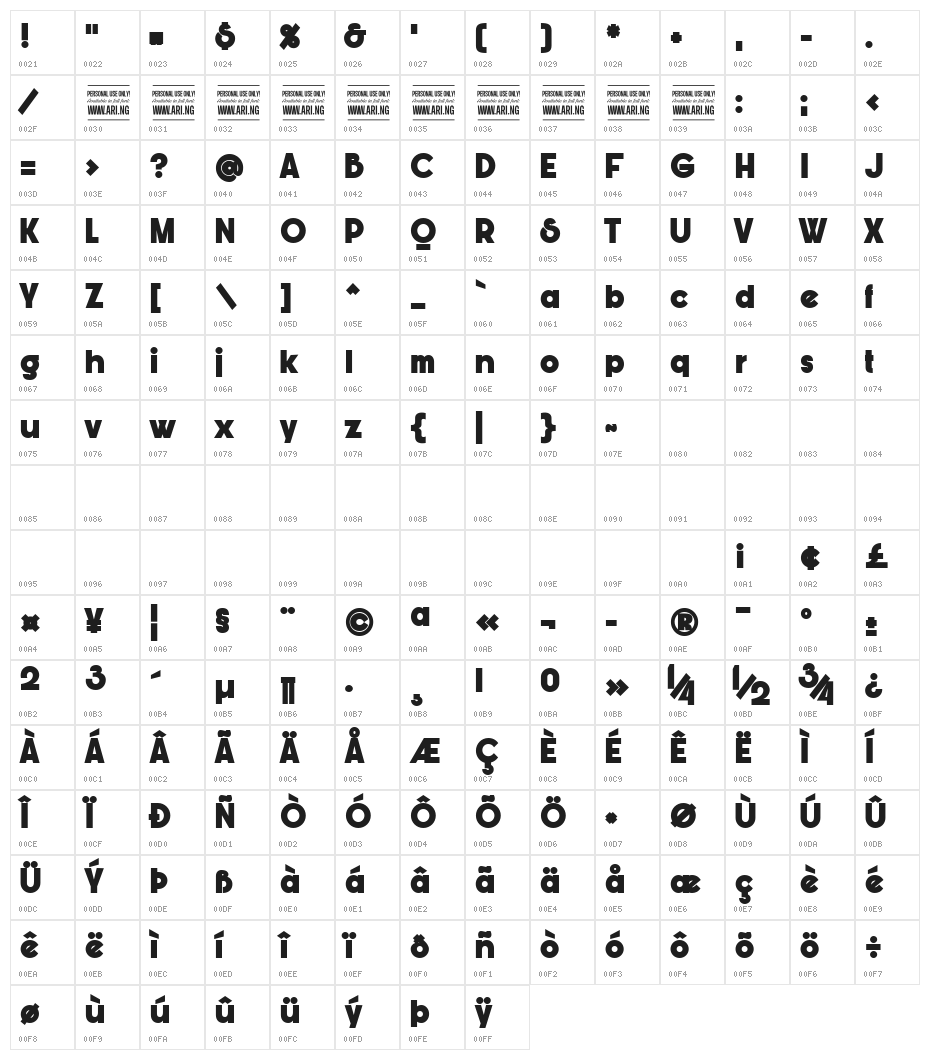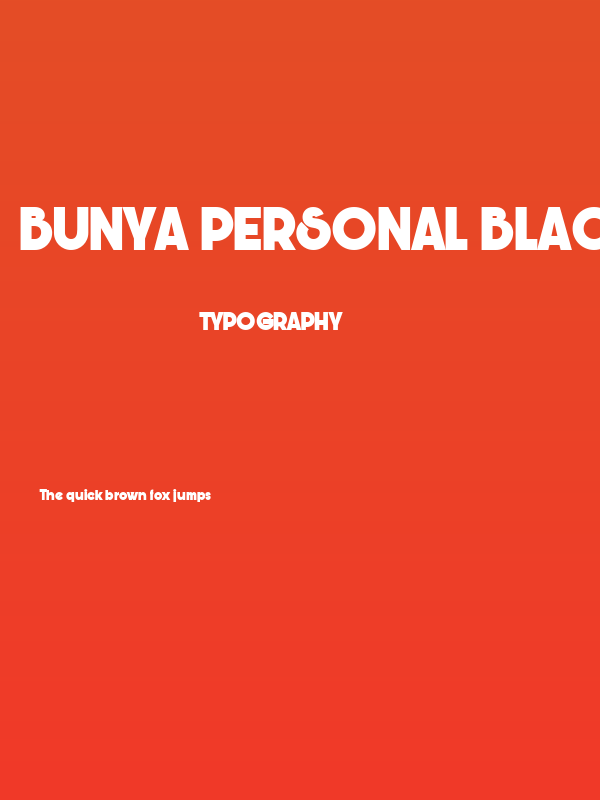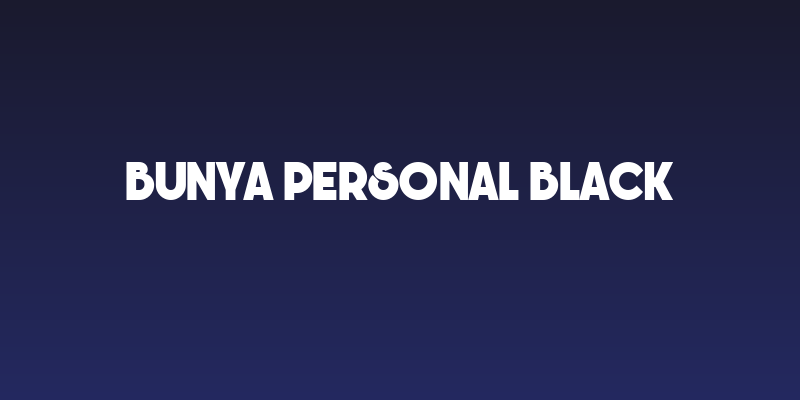
Bunya PERSONAL Black Font
Bunya PERSONAL Black Description
This bold and striking font features thick, uniform strokes that create a powerful visual impact. The uppercase and lowercase letters are designed with a consistent weight, giving the font a cohesive and modern appearance. The geometric shapes of the characters are clean and precise, with a slight emphasis on rounded edges that soften the overall look. The numbers and special characters maintain the same boldness, ensuring a harmonious design throughout. This font is perfect for making a statement and grabbing attention with its strong and assertive style.